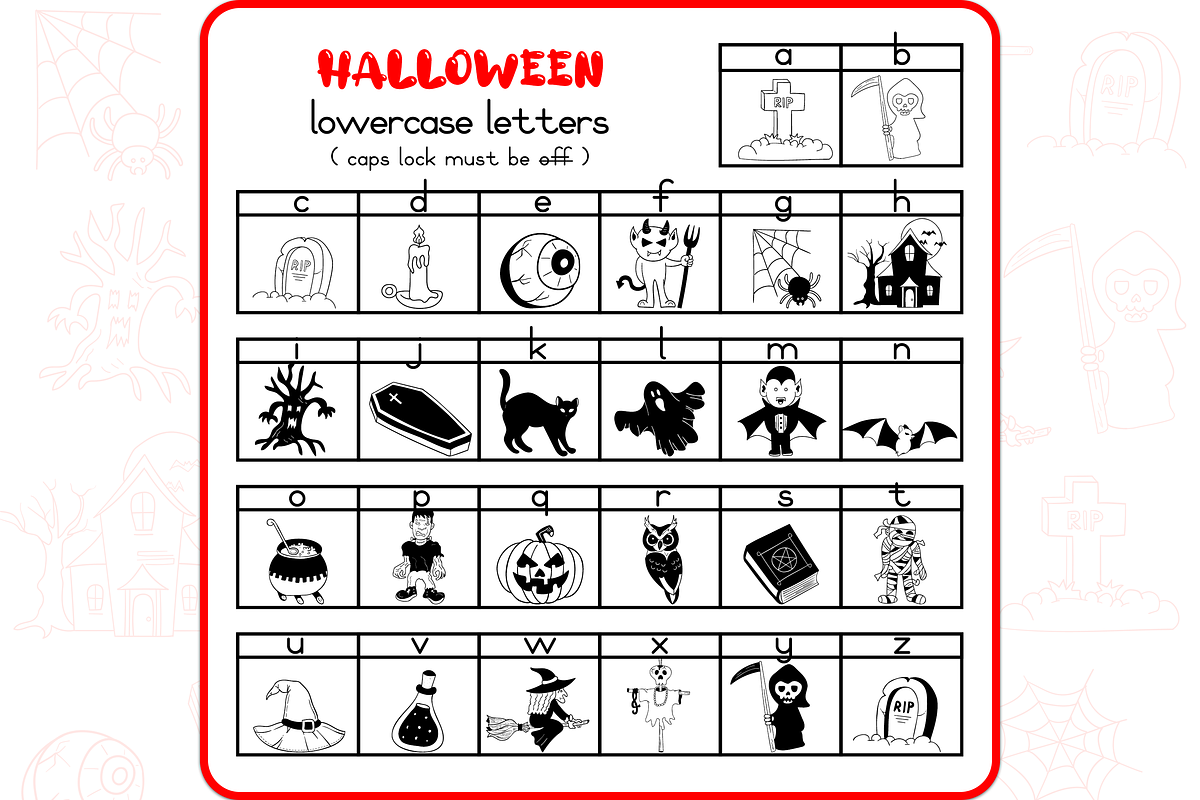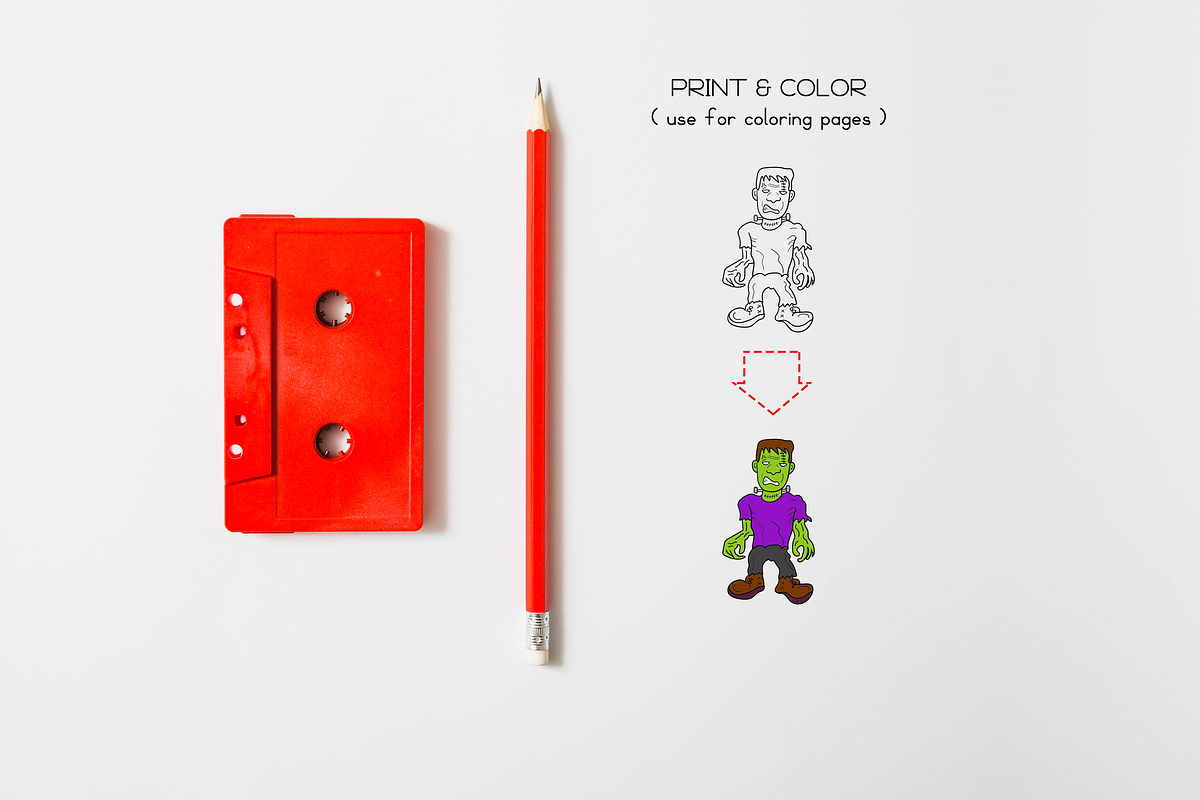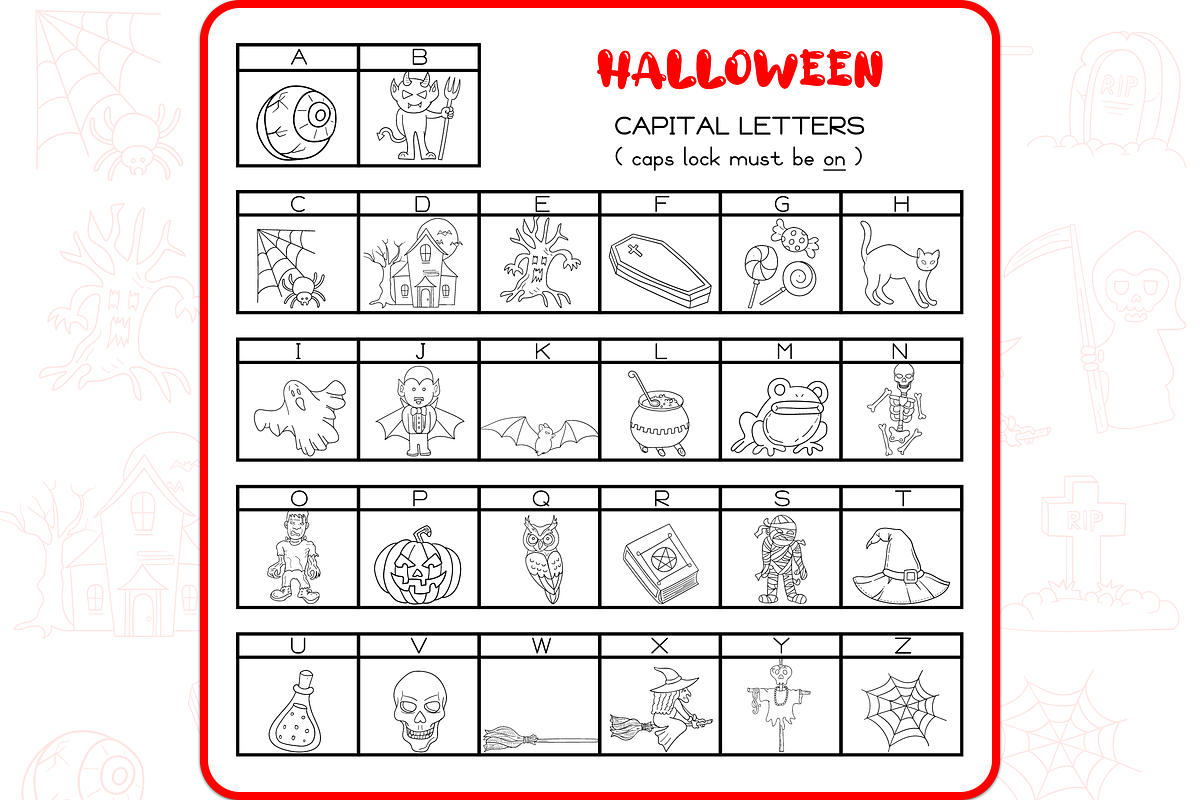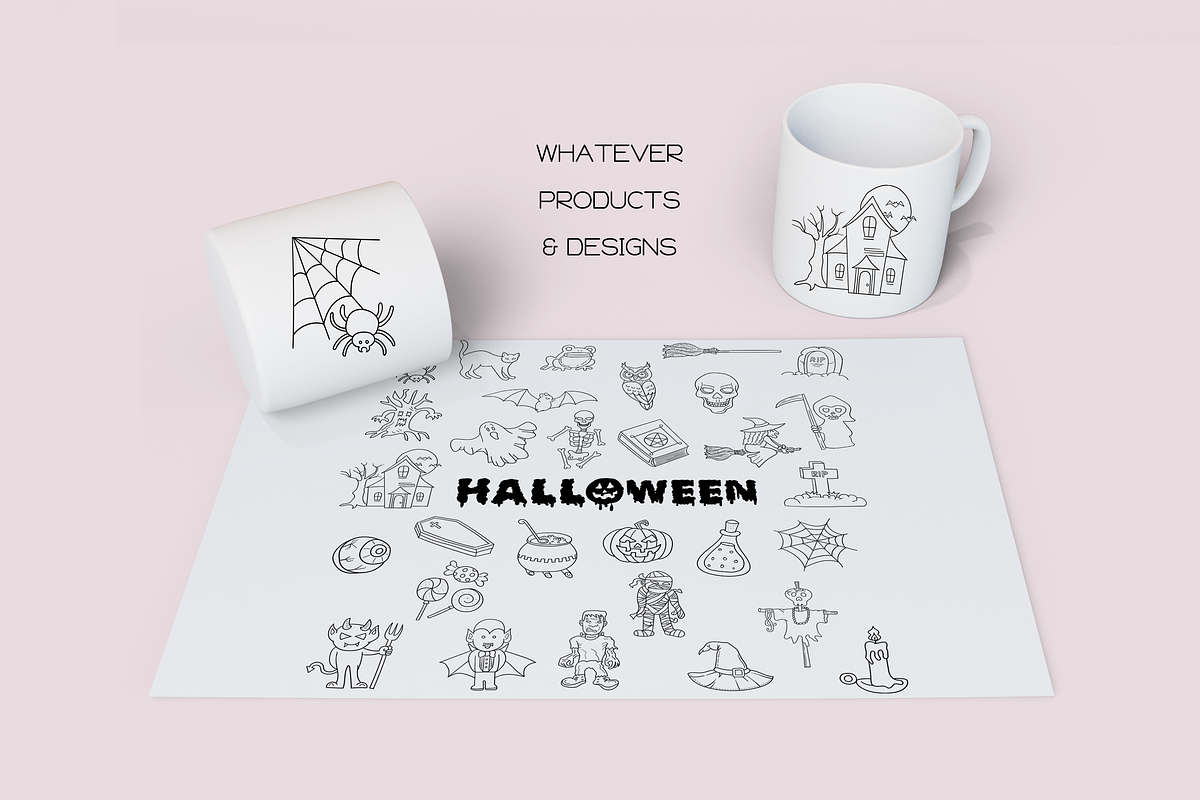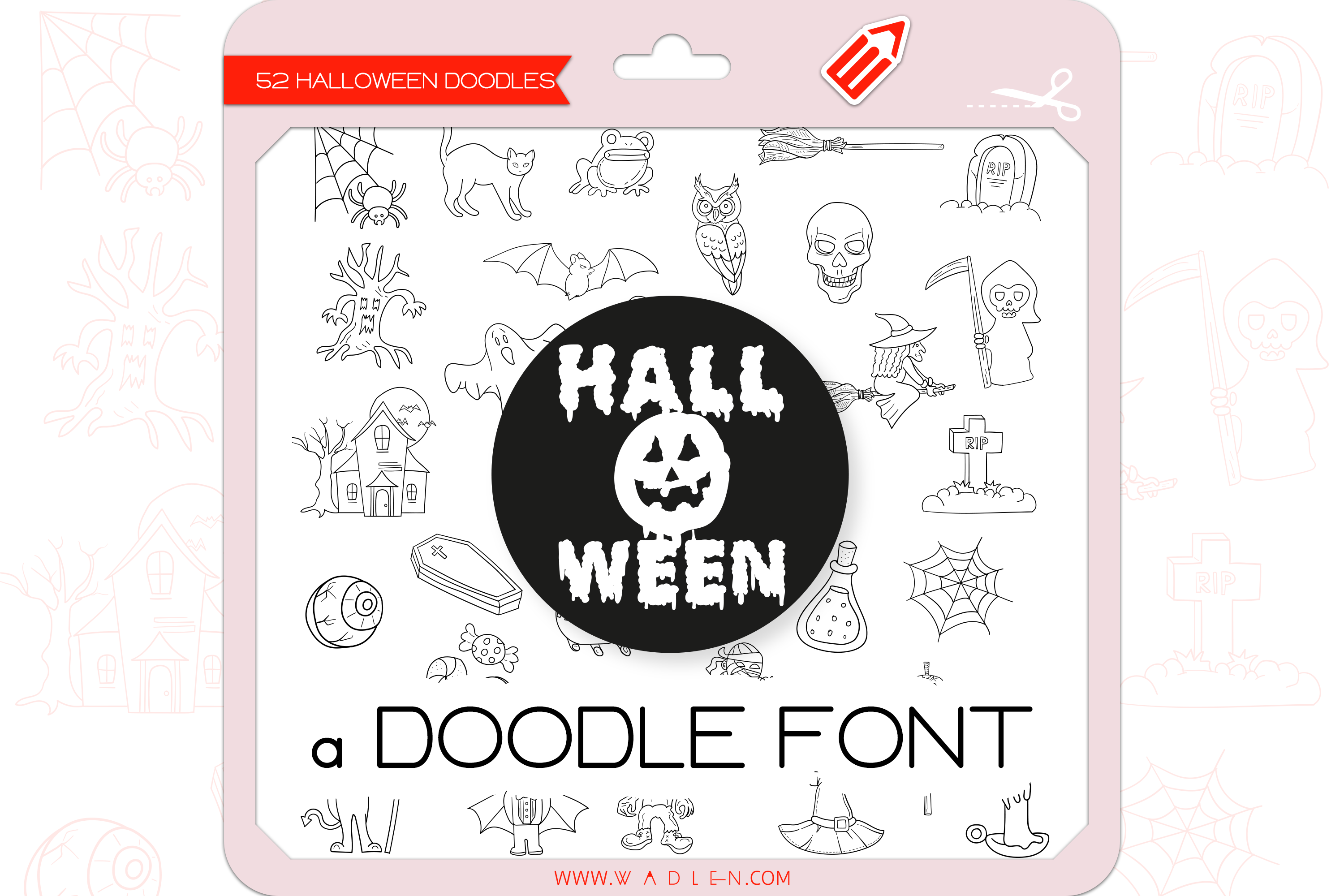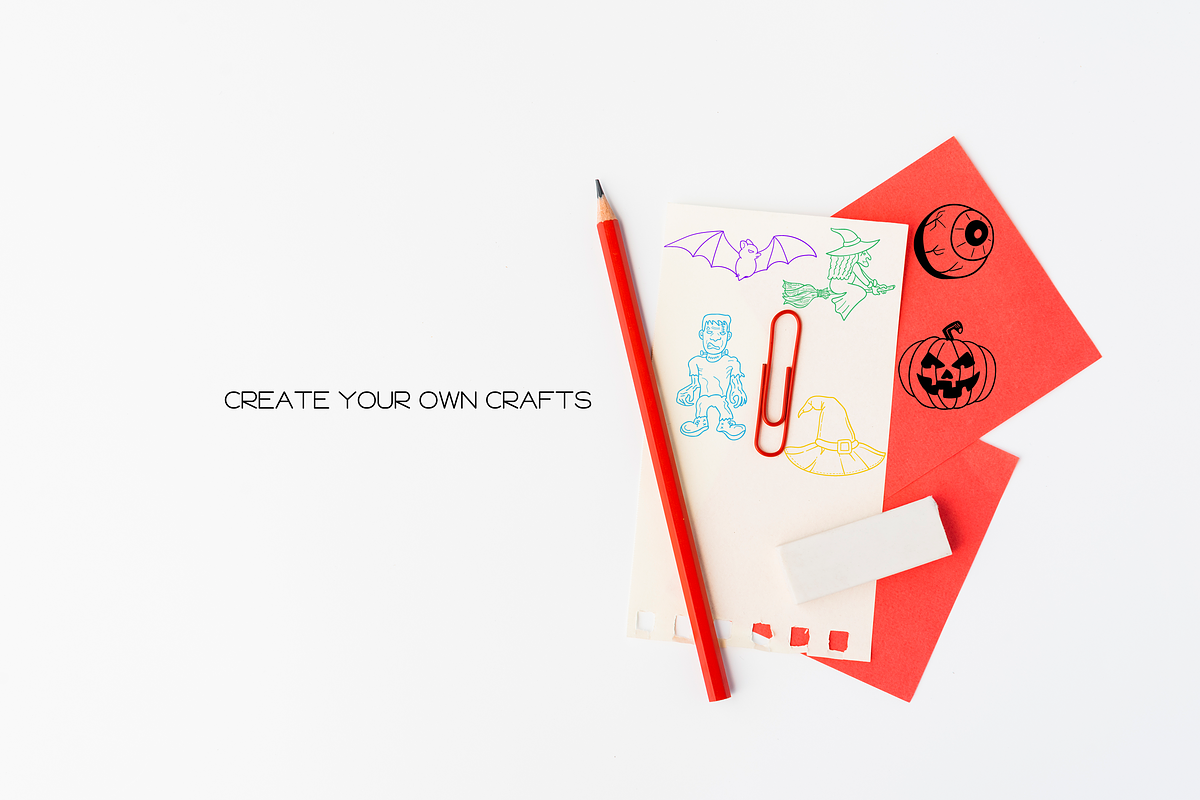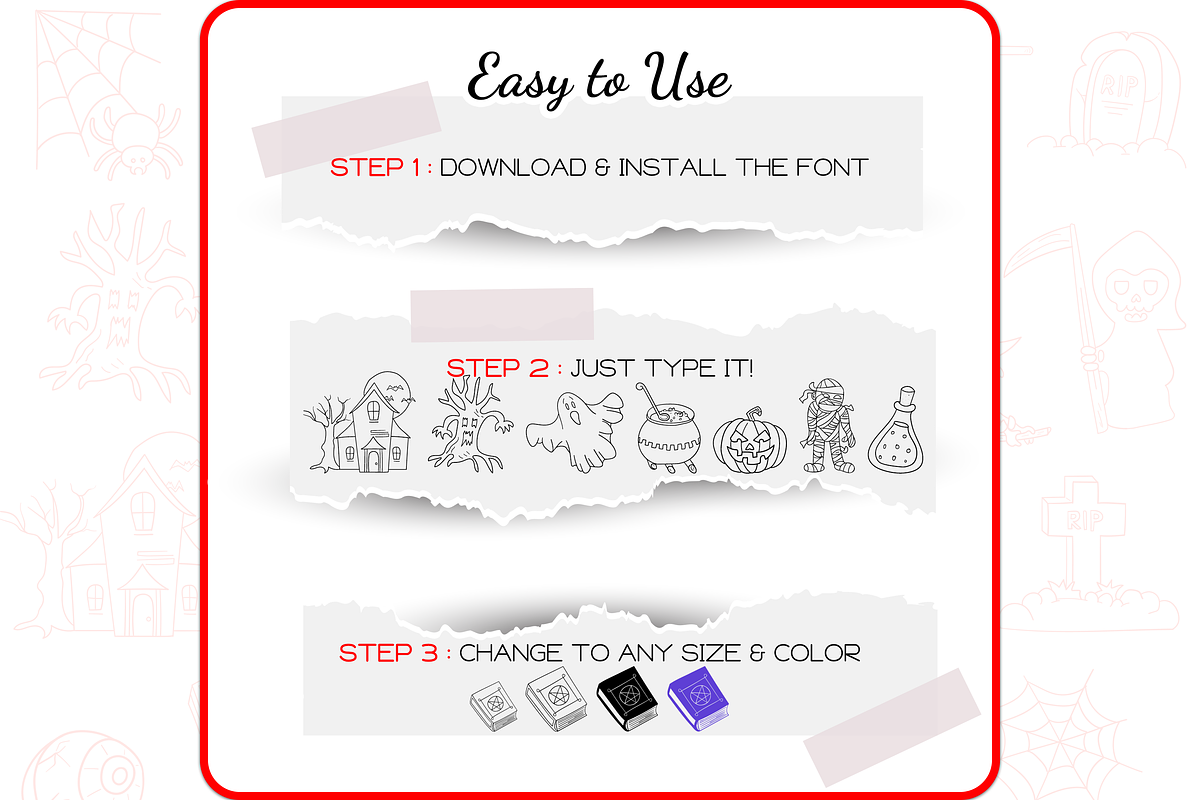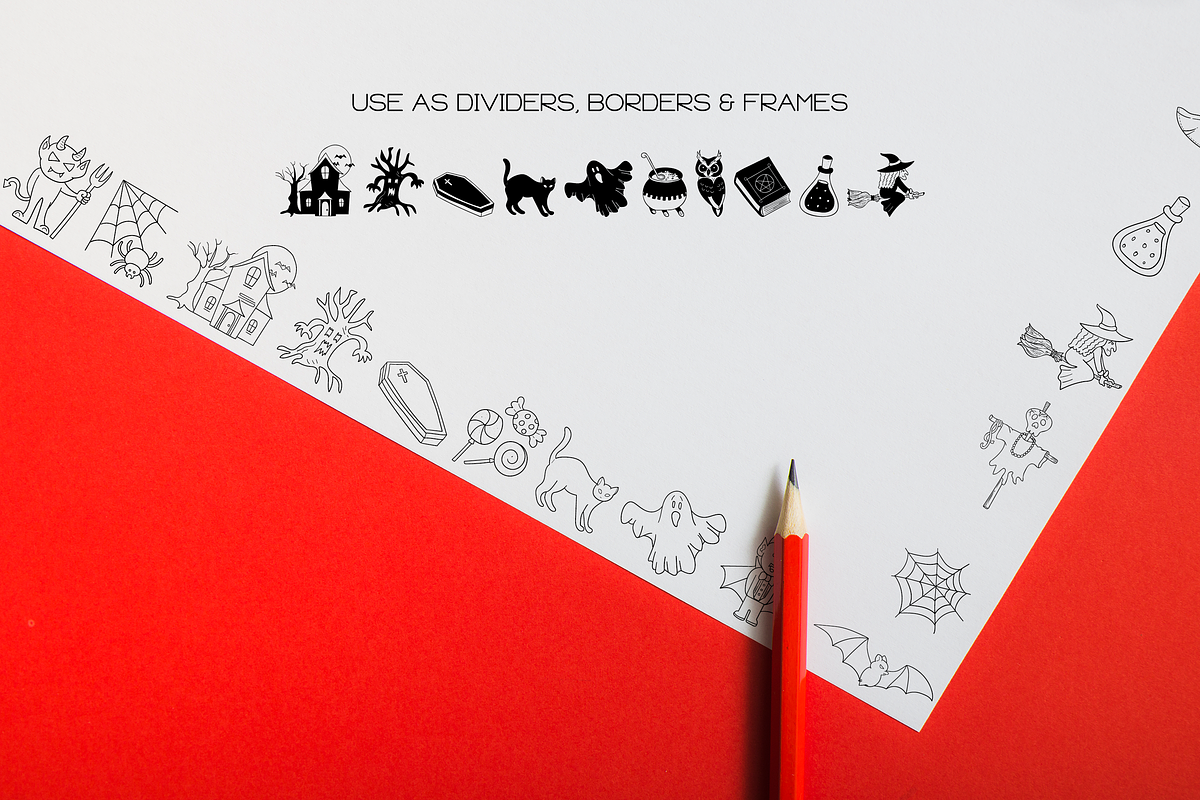
Halloween Doodles - Dingbats Font
Halloween dingbats font containing 52 hand-drawn doodles.
Bat, Black cat, Devil, Ghost, Mummy, Haunted house, Cauldron, Witch, Witch hat, Witch’s broom, Candies, Owl, Spider, Spider web, Skull, Skeleton, Tombstone, Gravestone, Jack o' lantern, Frankenstein, Vampire, Scarecrow, Poison, Eyeball, Book of spells, Coffin, Frog, Halloween Tree, Candle, Grim reaper